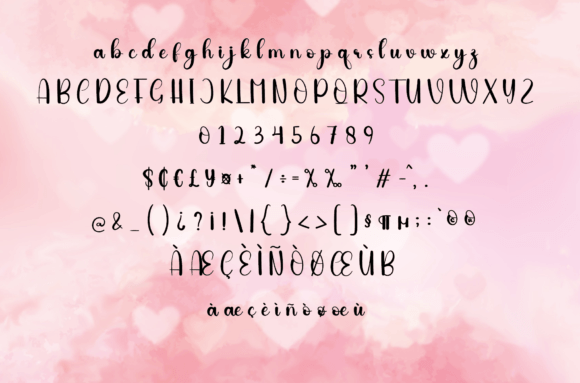
Husban
About Husban
Husban is a sweet and friendly handwritten font. Creative and cute, this font is ideal for writing wedding invitations, cards, or any other design that might need a fun touch!